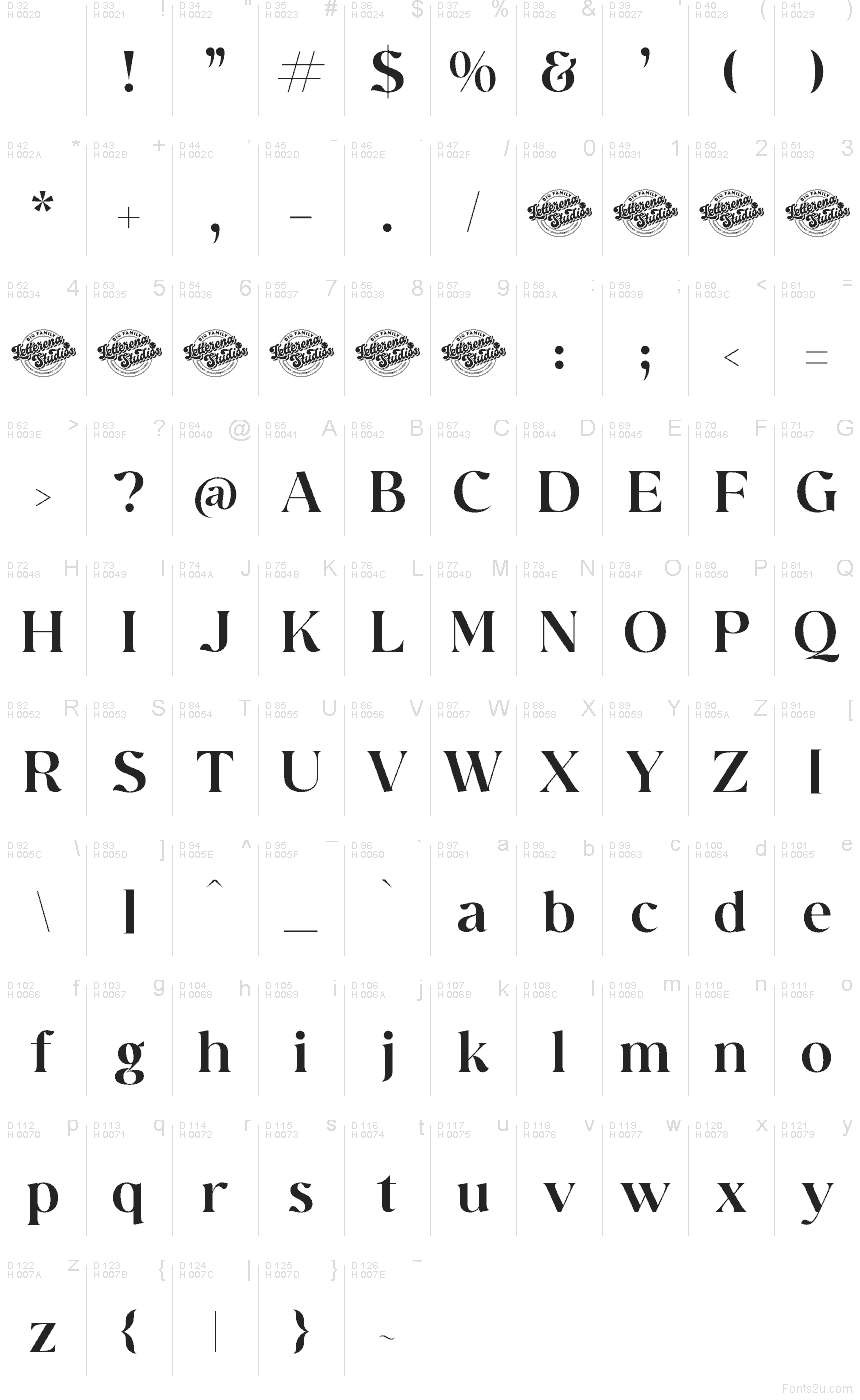
Rehgal font by Letterena Studios is a free serif typeface with an unmistakably theatrical streak. Thick, inky strokes swell into sculpted curves, while tight notches and sharp cuts keep the letters feeling crisp and modern rather than old-fashioned. The overall rhythm is bold and confident, giving even a single word the weight of a logo or headline.
Using Rehgal, short phrases feel like branding on their own, which makes this free font a natural fit for luxury logos, packaging, book covers, editorial titles, posters, and bold social media graphics. It shines when you give it room to breathe at larger sizes, then support it with a clean geometric sans for body copy to balance all that drama.